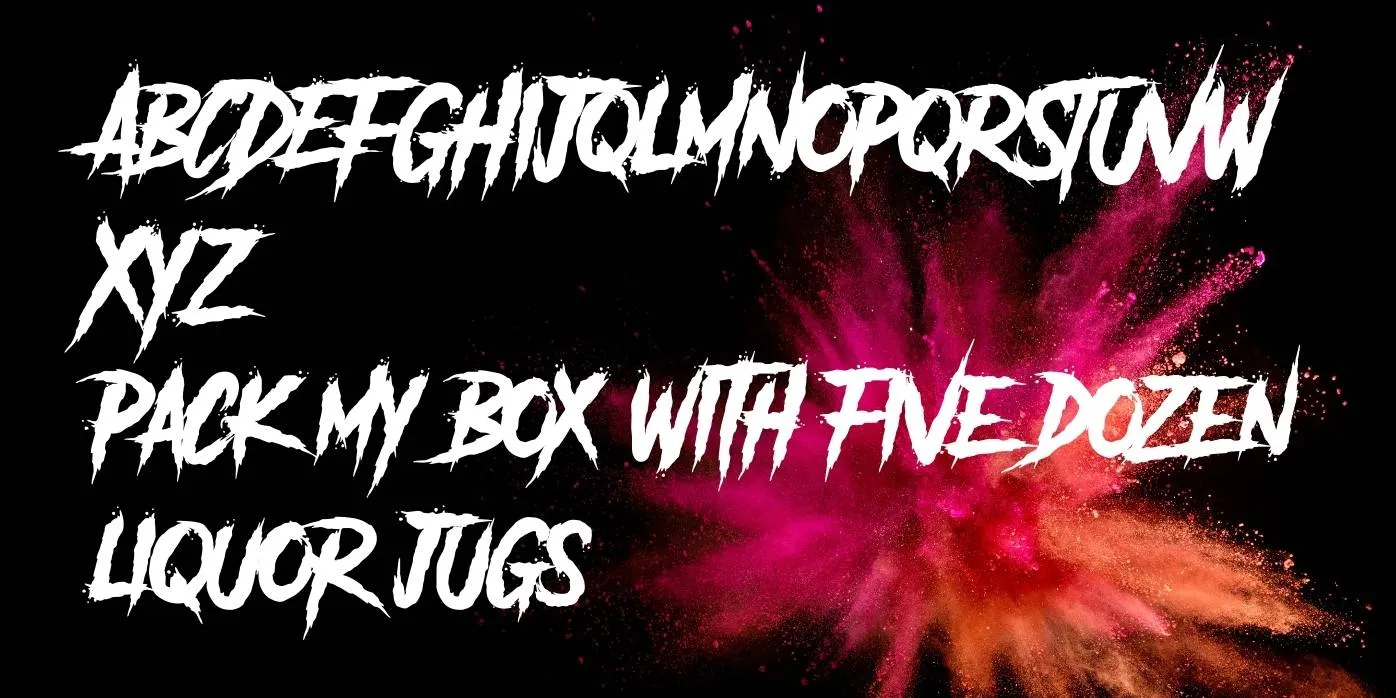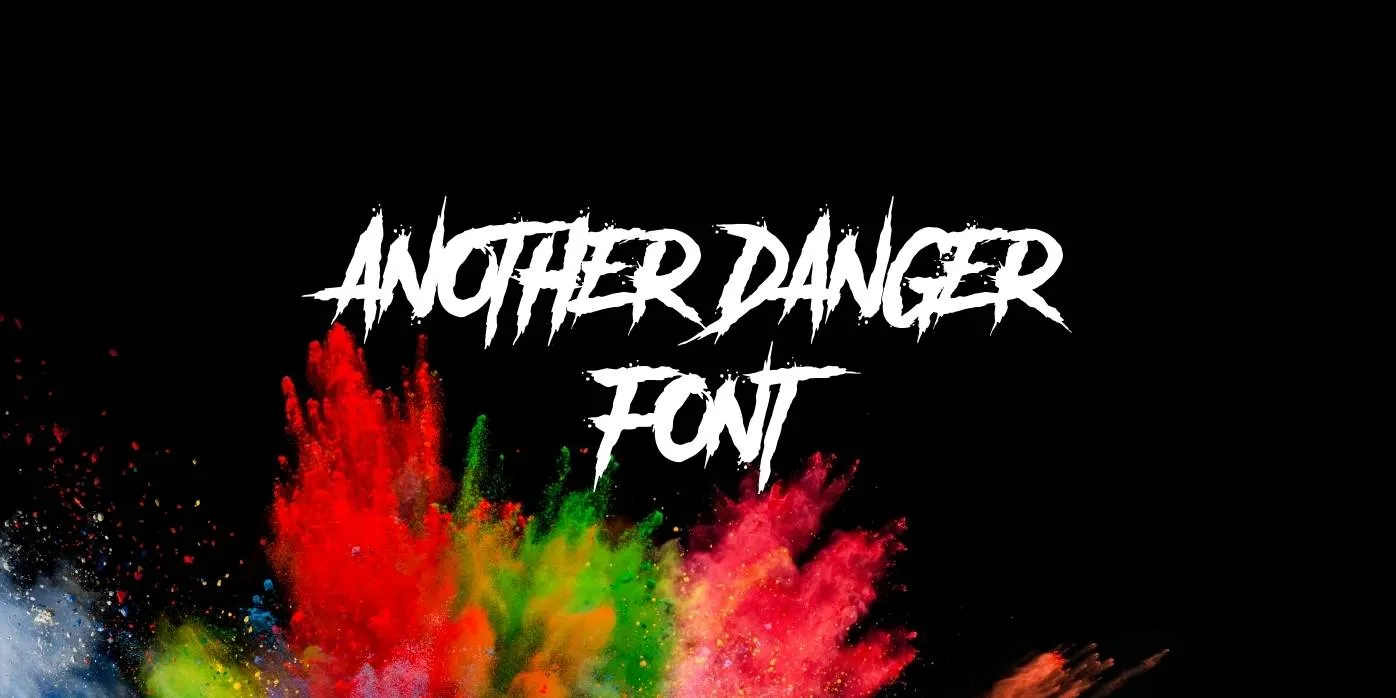
Another Danger Font
Another Danger is a stunning and outstanding font that seems like a Brush painting. The font family belongs to a Brush font family and the designer of this typeface is The Branded Quotes. It has TTF features and is free for personal use. The font has Uppercase Letters and has some useful symbols.
Its brushy characters are very awesome that provide a scary and horrible look to the user and viewer. This typeface is known by its name as “Another Danger”. So it is very good for making posters and relating stuff. The font style is very useful for creating immense designs in CSS (Cascading Style Sheet) and Adobe Photoshop as well.